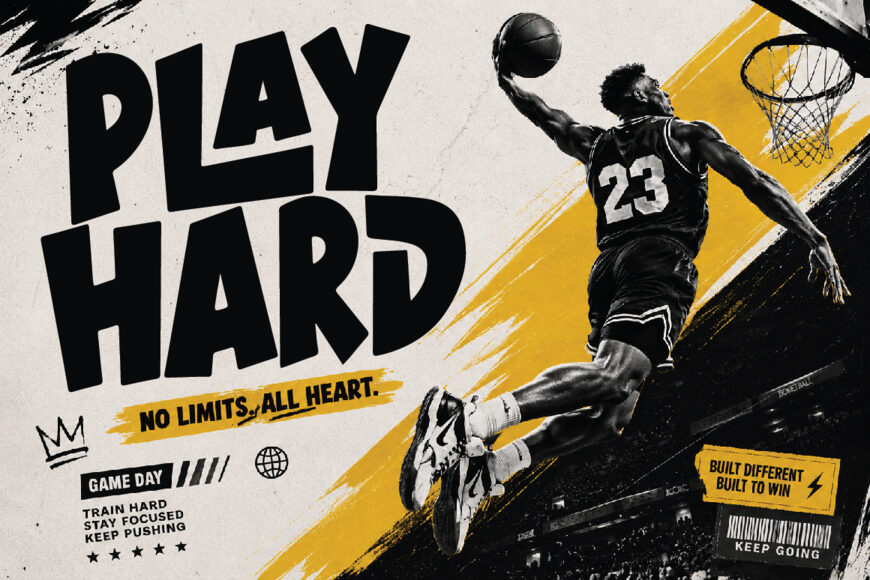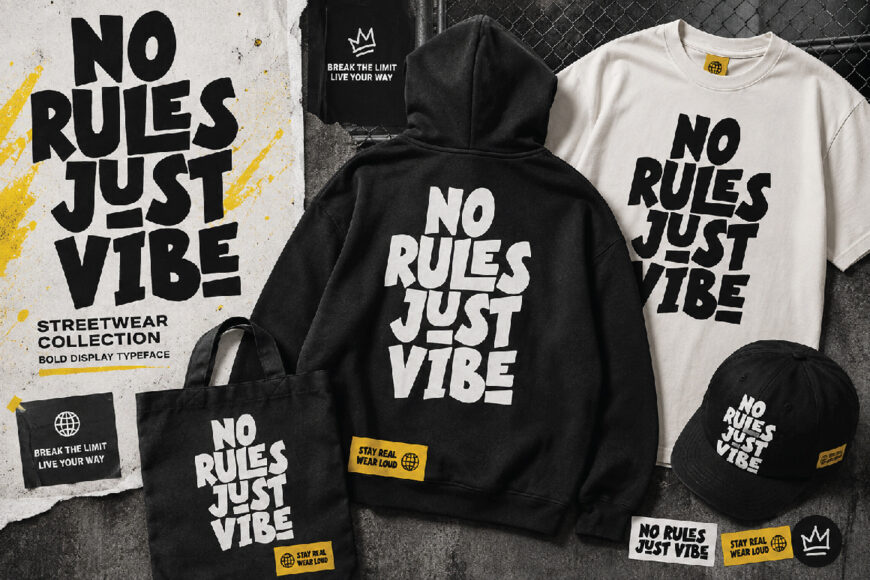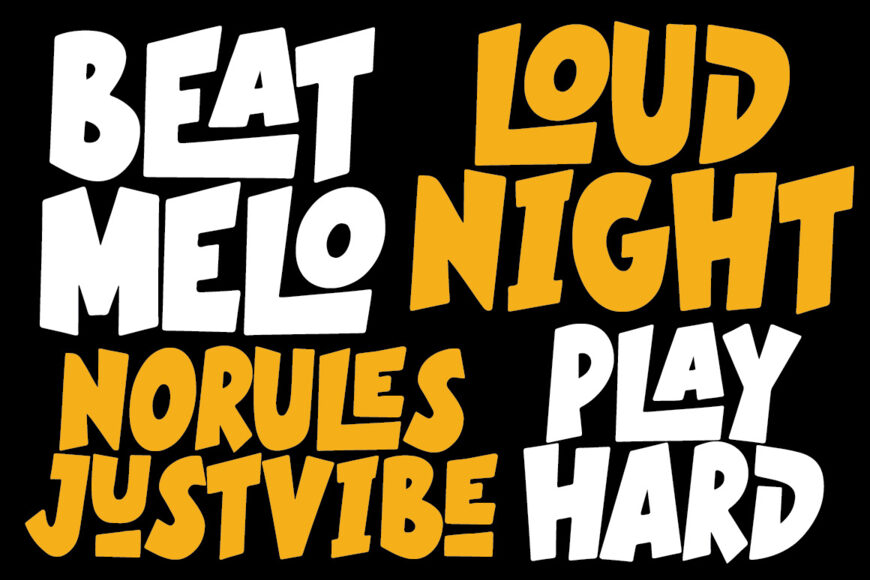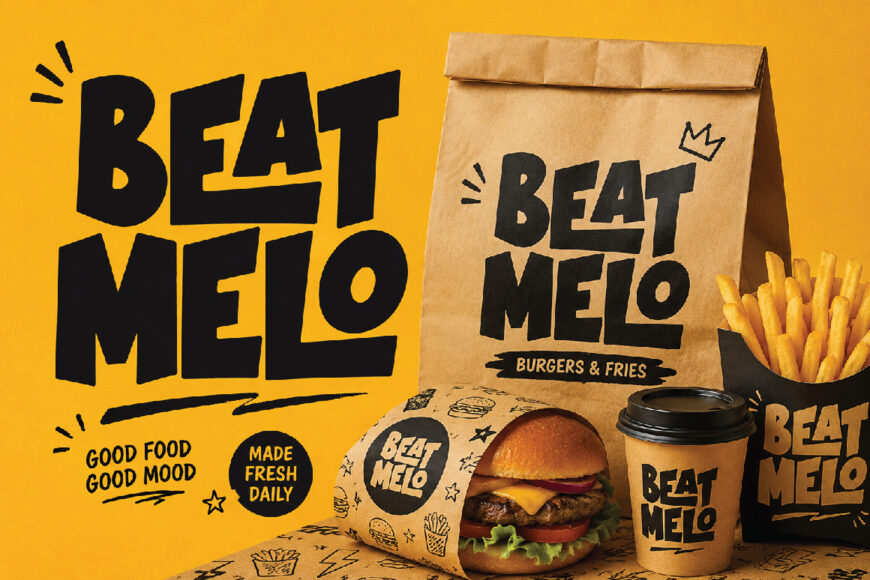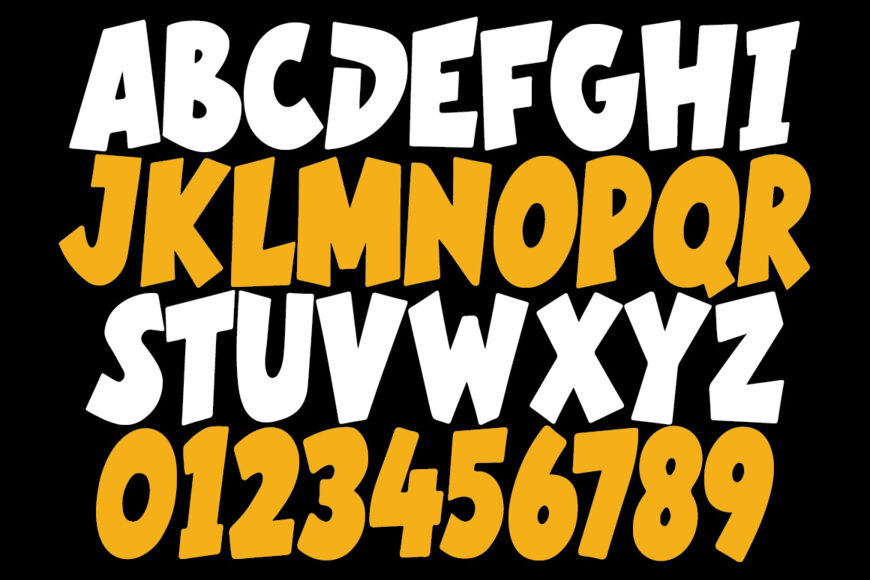
Garned Font
Garned is a bold and playful display typeface with chunky, irregular letterforms, unexpected angles, and a slightly slanted character. Its expressive shapes are designed to bring strong visual impact to posters, streetwear, sports graphics, music artwork, branding, packaging, advertising, and more.